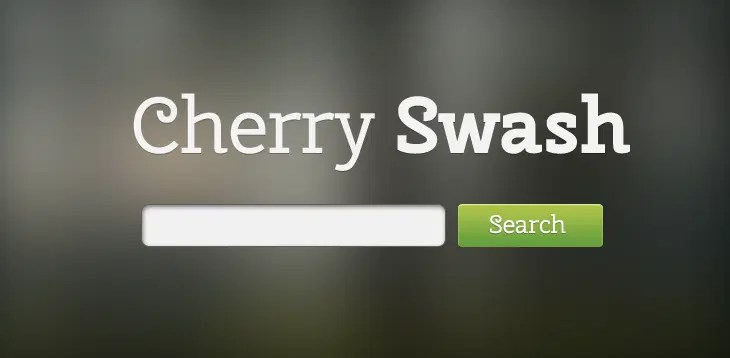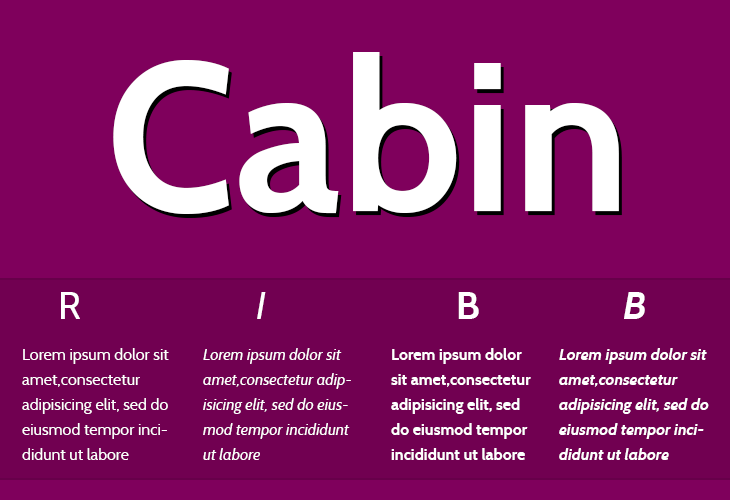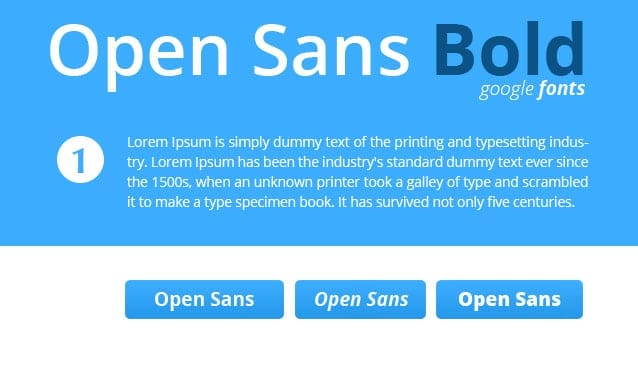
So, if you’re looking for a google font for your next logo, website, or anything else, you’ll be able to find them here easily. Fonts are hosted on the user’s server independently of external services.
October 15, 2020 october 15, 2020; Fonts are hosted on the user’s server independently of external services. It has a modern feel, and it looks great when paired with other google fonts like open sans or roboto. Playfair display is featured in more than 4,500,000 websites.
Best Google Fonts for Web Design Projects « 10 Best Google Fonts Slabo is a good collection of specific best web fonts for use in online advertising and other web related uses.
Google font can also be used on many popular browsers today such as google chrome, firefox, opera, safari, opera and edge. Canonical ltd is funding the development on behalf the wider free software community and the ubuntu project. The best google fonts to explore for your website prototypes. It has a modern feel, and it looks great when paired with other google fonts like open sans or roboto.
They’re numbered, but don’t let that influence which one you choose for your next project. It is perfect for readability. Canonical ltd is funding the development on behalf the wider free software community and the ubuntu project. This is another very versatile google font. 10 Great Google Font Combinations For Your Next Design Project.
Playfair display is featured in more than 4,500,000 websites. The font features a full range of weights and styles along with their respective italics that makes for a subtle use of various design and web projects. It is perfect for readability. 30 best google fonts for your next project. 9 Best Type Foundries That Aren't Google Fonts Google fonts, Custom.
It has a modern feel, and it looks great when paired with other google fonts like open sans or roboto. The font features a full range of weights and styles along with their respective italics that makes for a subtle use of various design and web projects. If you are looking for the best web design services company in india then reach us immediately. With a library of more than 1000 choices, google fonts is a tool that aims to increase beauty and usability to websites throughout the world. 5 Trendy Google Font Combinations For Your Next Design Project Font.
So, if you’re looking for a google font for your next logo, website, or anything else, you’ll be able to find them here easily. This is another very versatile google font. It has a modern feel, and it looks great when paired with other google fonts like open sans or roboto. If you’re still wondering why you should consider using google fonts. 10 Great Google Font Combinations For Your Next Design Project.
Always choose the best typeface for the project. You can easily apply fonts to your website through the use of a cdn and improve website. Merriweather currently has 8 styles: With a library of more than 1000 choices, google fonts is a tool that aims to increase beauty and usability to websites throughout the world. 10 Great Google Font Combinations For Your Next Design Project.
Dm sans pairs well with dm mono, which is a related font, and also with baskerville, roboto and noe. There are two easy ways to use google web fonts in your web design project. As one of microsoft's web core fonts, playfair display is perfect for title design. It is perfect for readability. Top 10 Stylish Google Font Google fonts, Font &, Stylish.
It is recommended that you use the font size higher than 30 px. So, if you’re looking for a google font for your next logo, website, or anything else, you’ll be able to find them here easily. 30 best google fonts for your next project. With a library of more than 1000 choices, google fonts is a tool that aims to increase beauty and usability to websites throughout the world. Best Google fonts Website Design Project Click.
Choosing a google font for your logo, web, or print project. So, if you’re looking for a google font for your next logo, website, or anything else, you’ll be able to find them here easily. 30 best google fonts for your next project. Rubik’s rounded corners give it a pleasant and friendly feel. Best Google Web Fonts to Use for Blog Headings The Blog Market Web.
Rubik is a sans serif font designed by philipp hubert and sebastian fischer. You can easily apply fonts to your website through the use of a cdn and improve website. Dalton maag is undertaking the technical font design work and implementation. The font features a full range of weights and styles along with their respective italics that makes for a subtle use of various design and web projects. 15 Great Google Font Combinations For Your Next Design Project Font.
With a library of more than 1000 choices, google fonts is a tool that aims to increase beauty and usability to websites throughout the world. They’re numbered, but don’t let that influence which one you choose for your next project. The stix two math font is a uniform set of the free google fonts throughout the production process. It is recommended that you use the font size higher than 30 px.